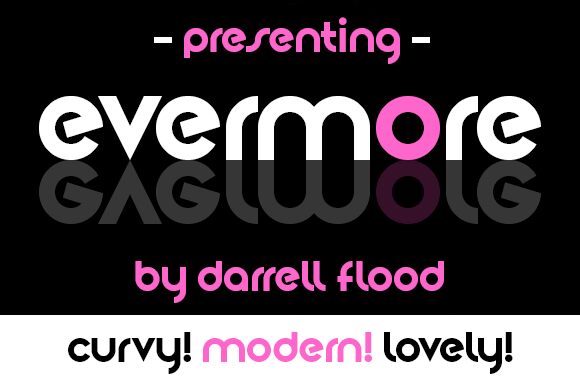
Evermore Italic
Evermore Italic is a stunning sans serif font designed by Darrell Flood, perfect for projects that require a bold and modern touch. This font is ideal for logos, posters, and book covers. Its sleek and contemporary style makes it suitable for branding projects that require a more minimalist approach. The italicized lower case letters add an elegant flair to any design while maintaining readability. Evermore Italic's bold weight ensures that your message will stand out and make an impact. Whether you're designing for print or digital media, this font is sure to impress your audience with its clean lines and sophisticated look.